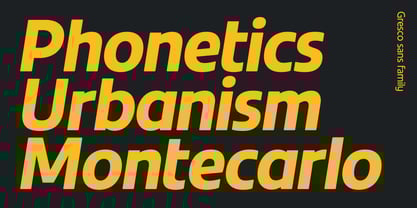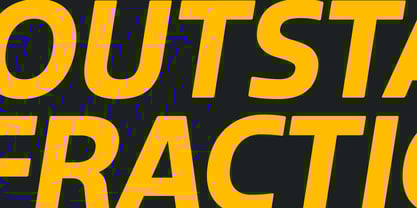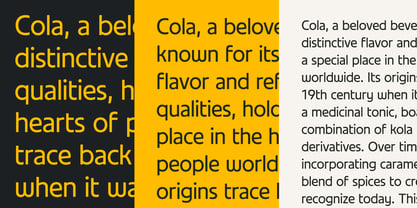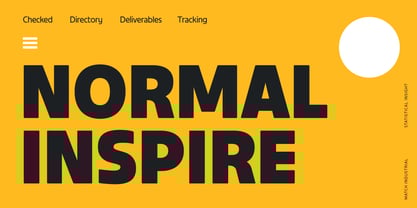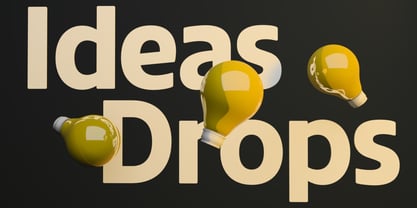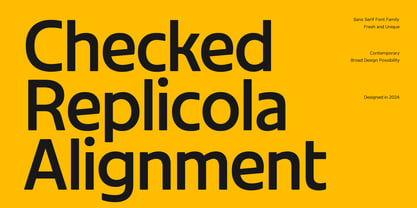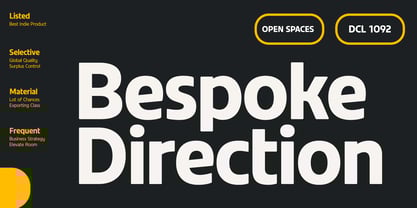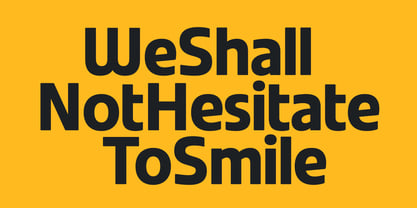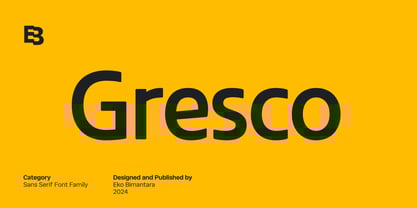
Gresco
by Eko Bimantara
The Gresco Font Family was designed by Eko Bimantara and published by Eko Bimantara. Gresco contains 18 styles and family package options. More about this family
Gresco is a sans display font family that combines bold, soft, classic, and modern elements. Designed by Eko Bimantara in 2024, this unique typeface features regular sans serif letterforms with a 70’s geometric touch, offering a vintage interpretation of the future. With tight spacing, soft edges, and a quirky personality, Gresco adds a distinctive flair to any design. The font family includes eight styles, ranging from thin to black, each with matching obliques and broad Latin language coverage, providing versatility and extensive application options.
Ideal for display, large-size settings, and headers, Gresco fits seamlessly into various layout designs, logos, websites, brand identities, and product packaging. Its bold and soft character, along with its classic yet modern appeal, makes it suitable for both text and web font usage, ensuring a broad range of graphic design and creative purposes. Whether used for an eye-catching website or a standout product label, Gresco brings a unique and stylish touch to any projects.
Eko Bimantara is a type designer from Indonesia. Always has an intention to creating fonts that not only look great but also perform across a wide range of mediums and also across wide range of theme. The goal is to give designers the tools to make their projects that speaks a lot with various expression. Eko Bimantara’s fonts are featured in everything from corporate identities to street art posters, and have numerous ideas and concept ready to expand for fresh fonts for years further.